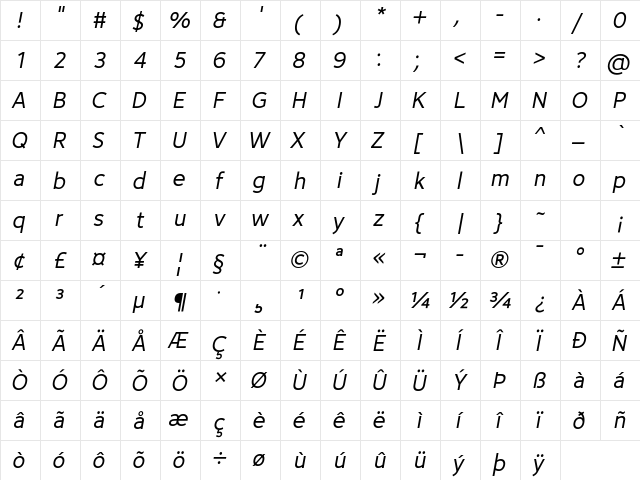
Avancement 2020 Italic
Italic · Daniel Lyons Entertainment Dan P. Lyons ·
Design Context for Avancement 2020 Typeface
Avancement 2020 takes a measured approach to typography — its balanced proportions and neutral character make it a reliable workhorse for both digital and print work. The dynamic lean of this cut emphasises speed and emphasis in any layout.